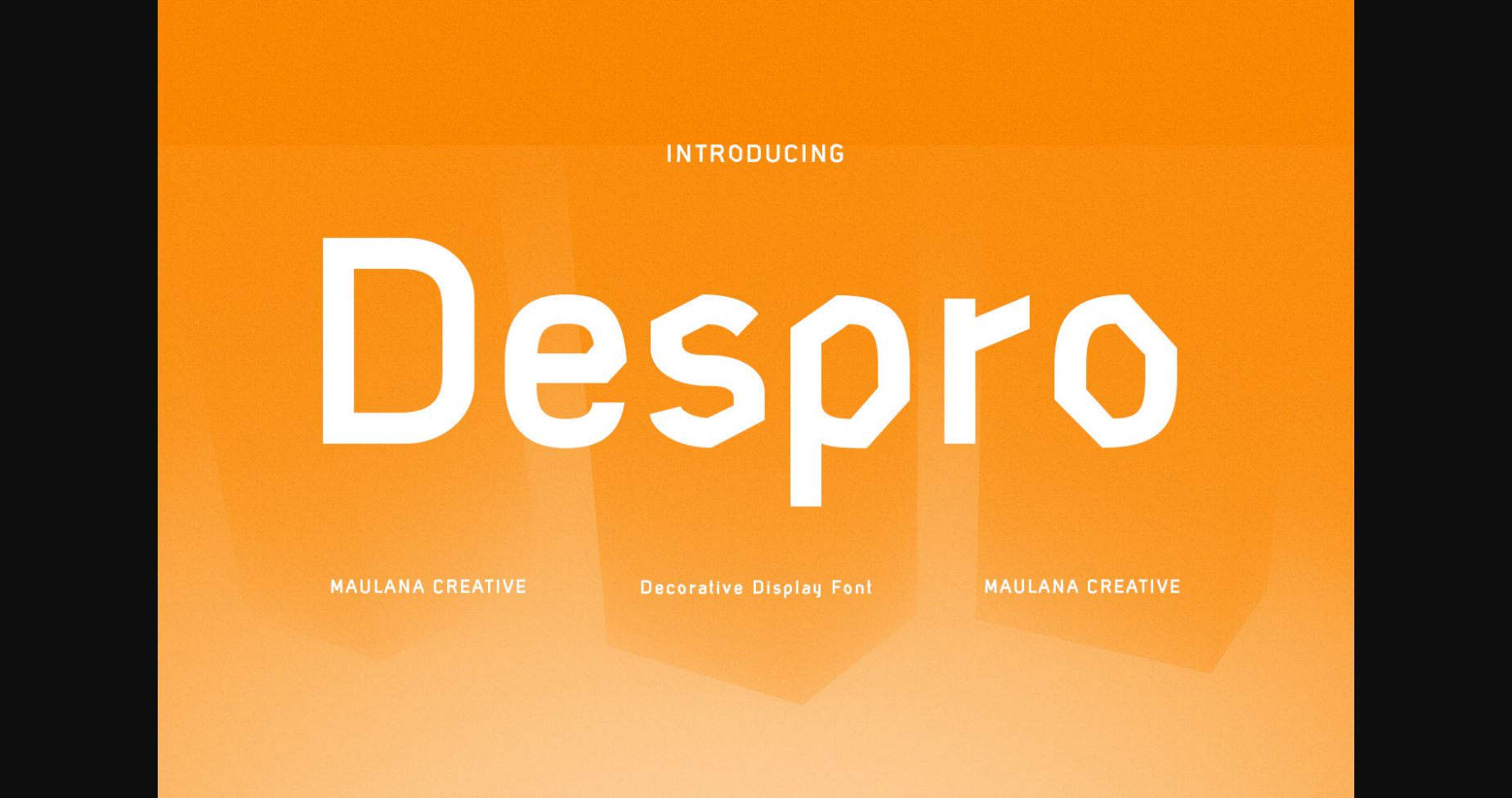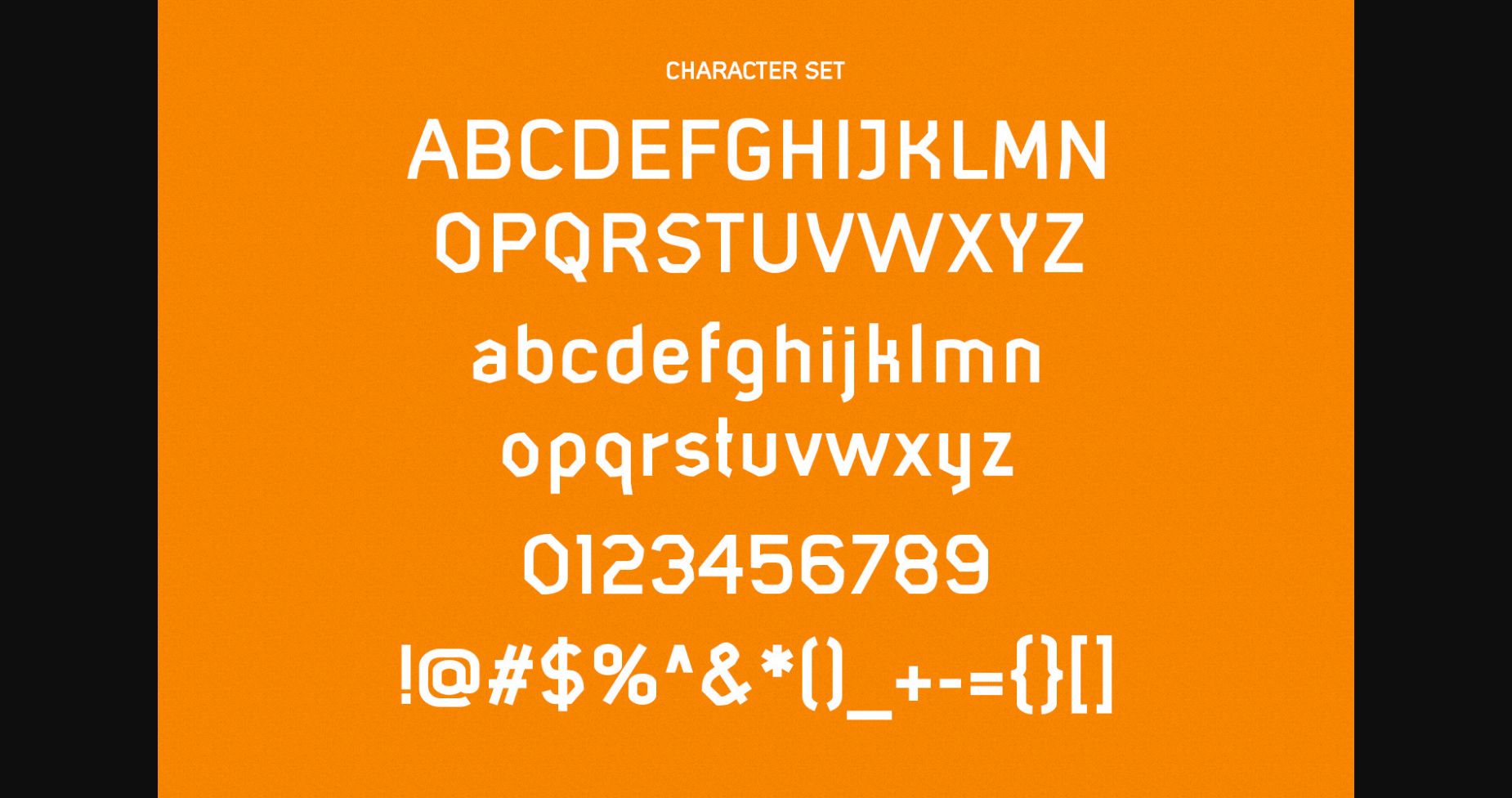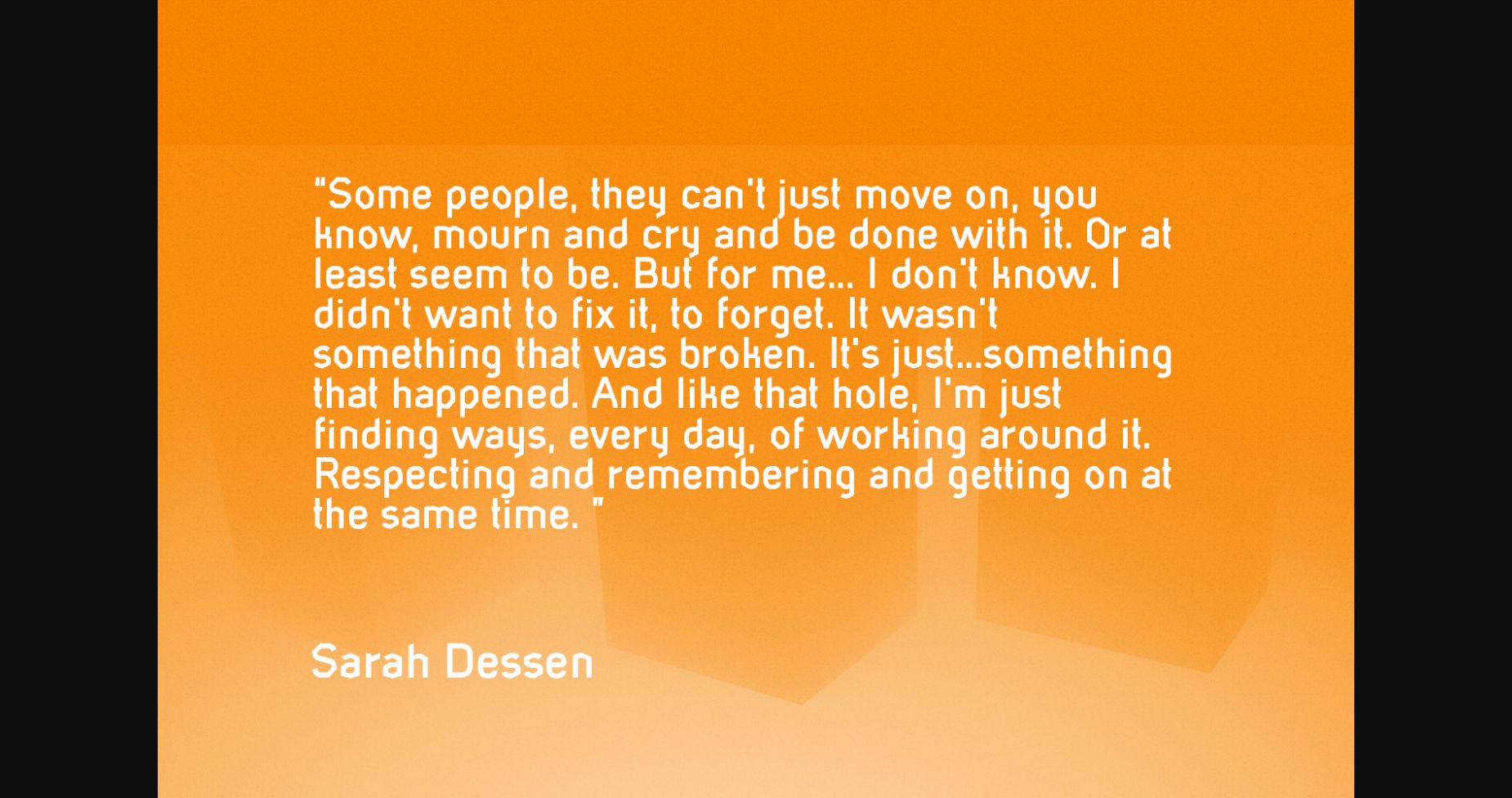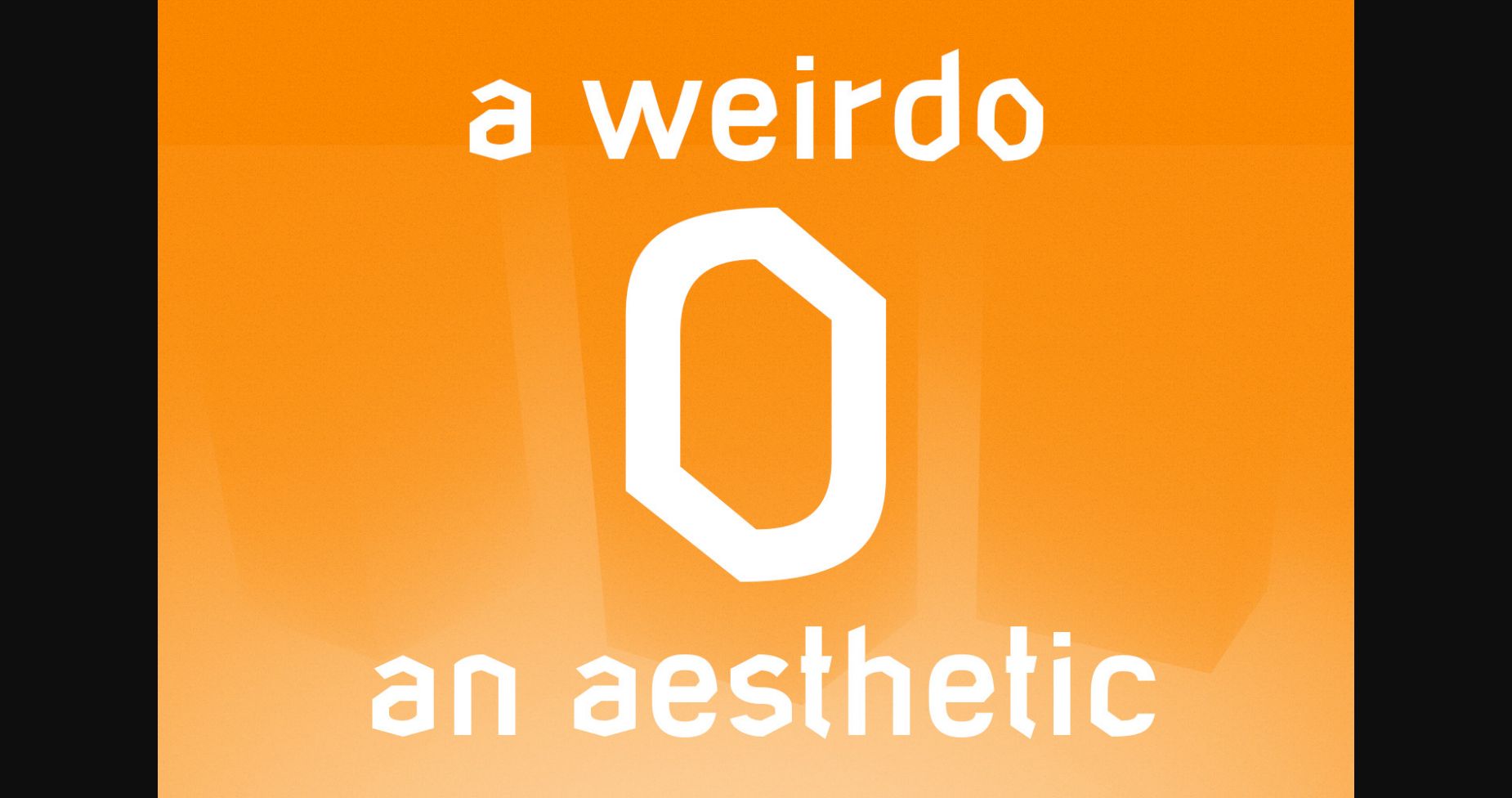
About Despro Font
Bring personality to your designs with this quirky and eye-catching sans-serif font. Despro’s playful curves and unexpected details make it perfect for creating fun and lively graphics, social media posts, and branding materials. Make your designs stand out with this distinctive and charming sans-serif font